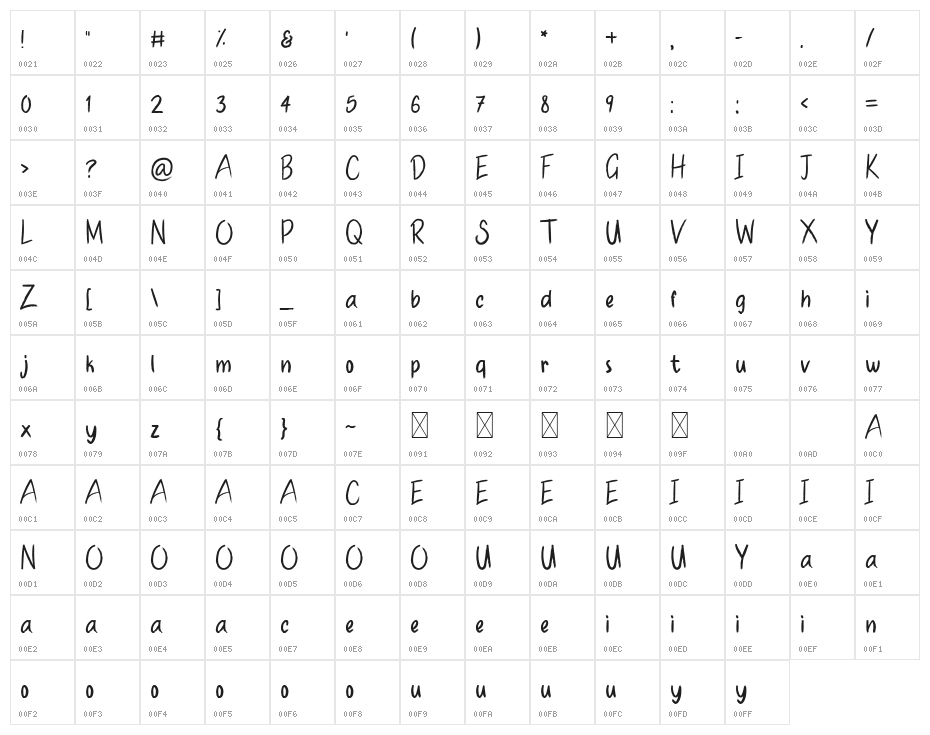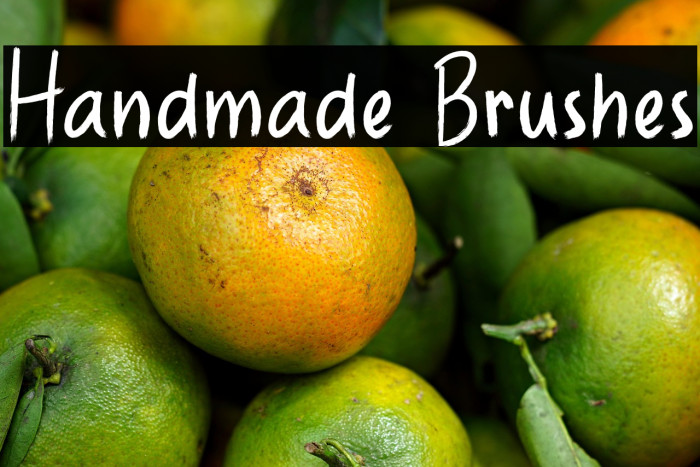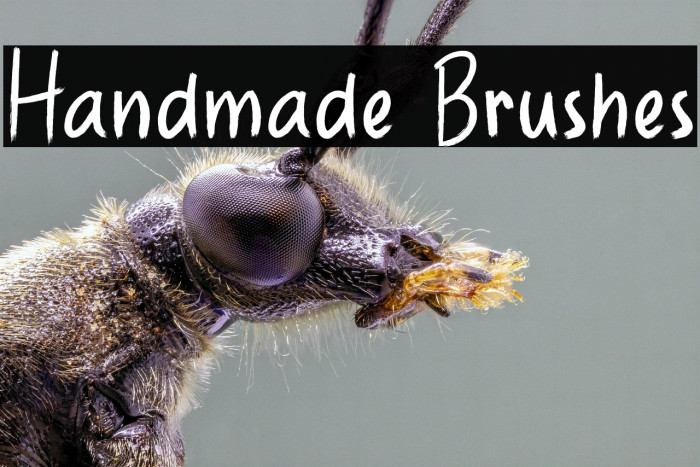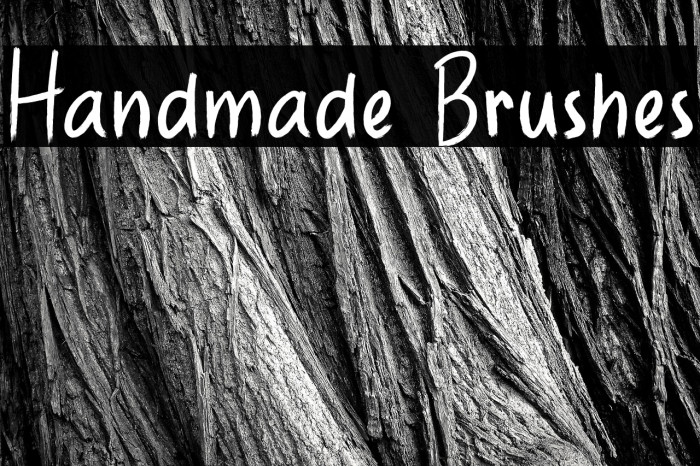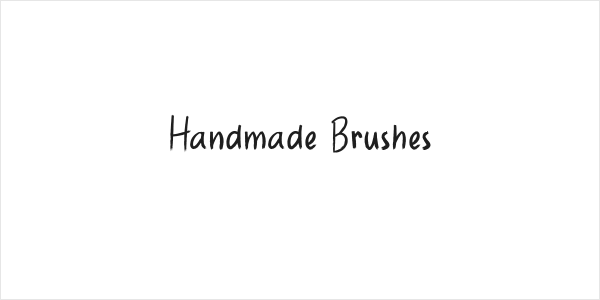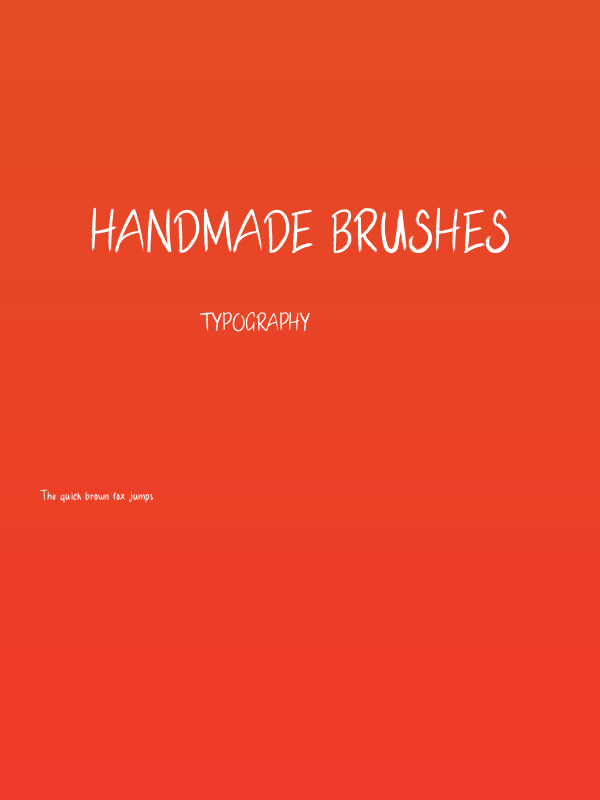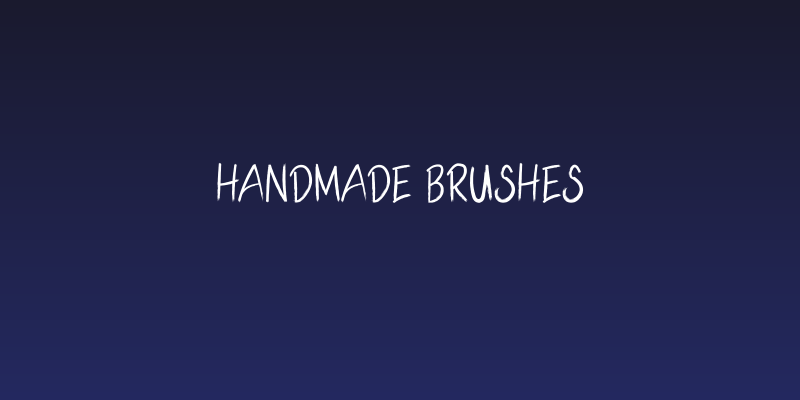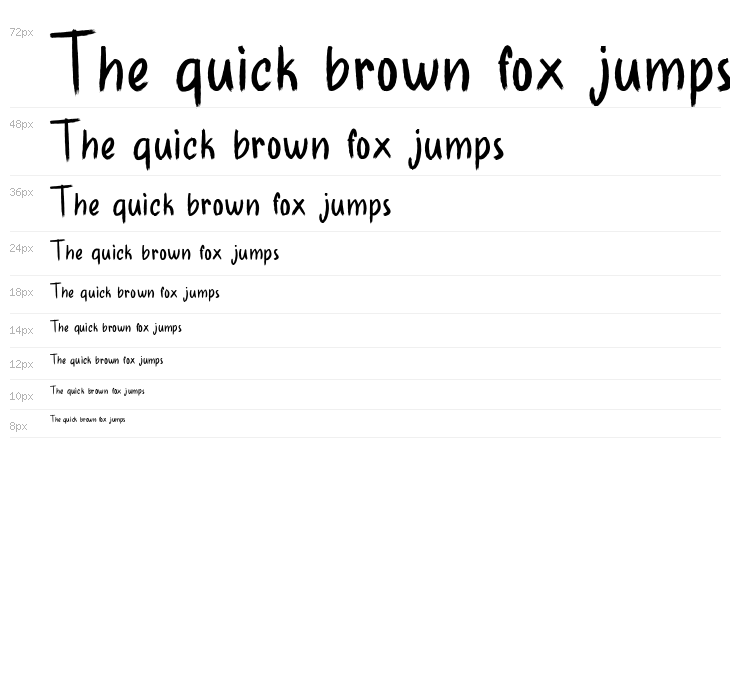
Handmade Brushes Font
Handmade Brushes Description
This font features a dynamic and energetic brush style, characterized by its hand-drawn appearance. The strokes are uneven, adding a sense of movement and personality to the text. The uppercase letters are bold and slightly elongated, while the lowercase letters maintain a consistent flow with a casual, informal touch. Numbers and special characters follow the same brush-like aesthetic, making them stand out with their artistic flair. This font is perfect for projects that require a personal, creative touch, such as invitations, posters, or branding materials that aim to convey a sense of individuality and artistic expression.
| Use Case | Headlines, Logos, Artistic designs |
| Proposed Projects | Ideal for creative projects like invitations, posters, branding, and artistic designs. |